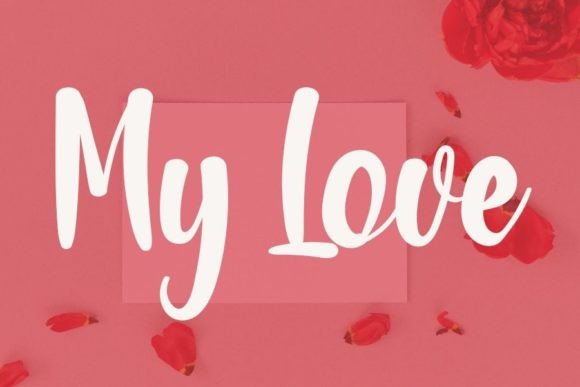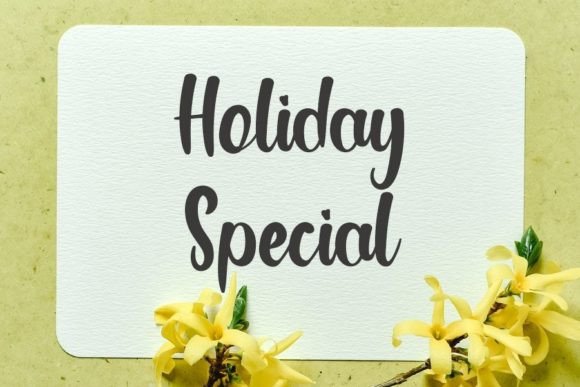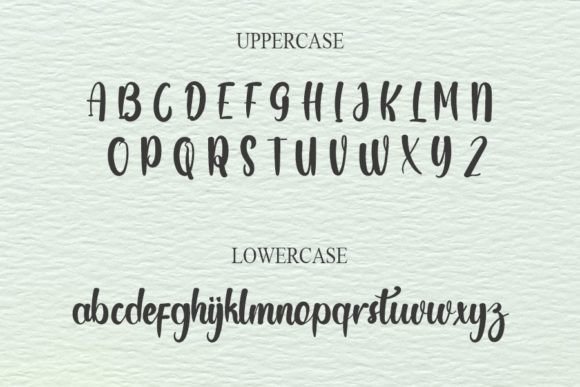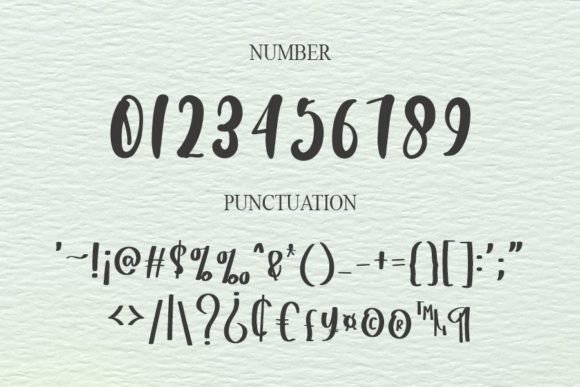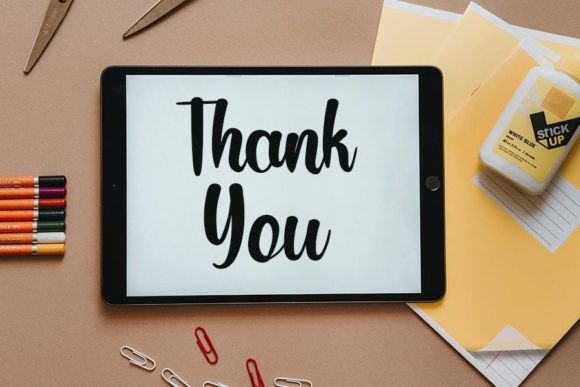
Bombastic Font
About Bombastic Font
“Bombastic” is not just a font; it’s a clean, relaxed, and friendly handwritten typeface that adds a touch of charm to your creative projects. With its neat and simple style, this font is versatile and has the potential to become your favorite go-to choice, suitable for a wide variety of designs, no matter the occasion!
The clean lines and friendly demeanor of “Bombastic” make it adaptable to various design contexts. Picture it enhancing your projects, from casual invitations to more formal occasions, effortlessly elevating the visual appeal.
For websites, social media posts, or any design that requires a friendly and approachable aesthetic, “Bombastic” becomes the perfect companion. Its relaxed style creates a welcoming atmosphere, making it a reliable font for projects that prioritize a friendly and engaging tone.
Whether you’re working on branding, packaging, or any creative endeavor, “Bombastic” stands out as a reliable and versatile typeface. Its simplicity adds a touch of elegance, ensuring that it remains a timeless choice for a wide range of design applications.
In essence, “Bombastic” is more than just a font; it’s a design companion that effortlessly adapts to any occasion, adding a clean and friendly aesthetic to your projects. Let “Bombastic” be the font that brings a sense of ease and simplicity to your creative endeavors.